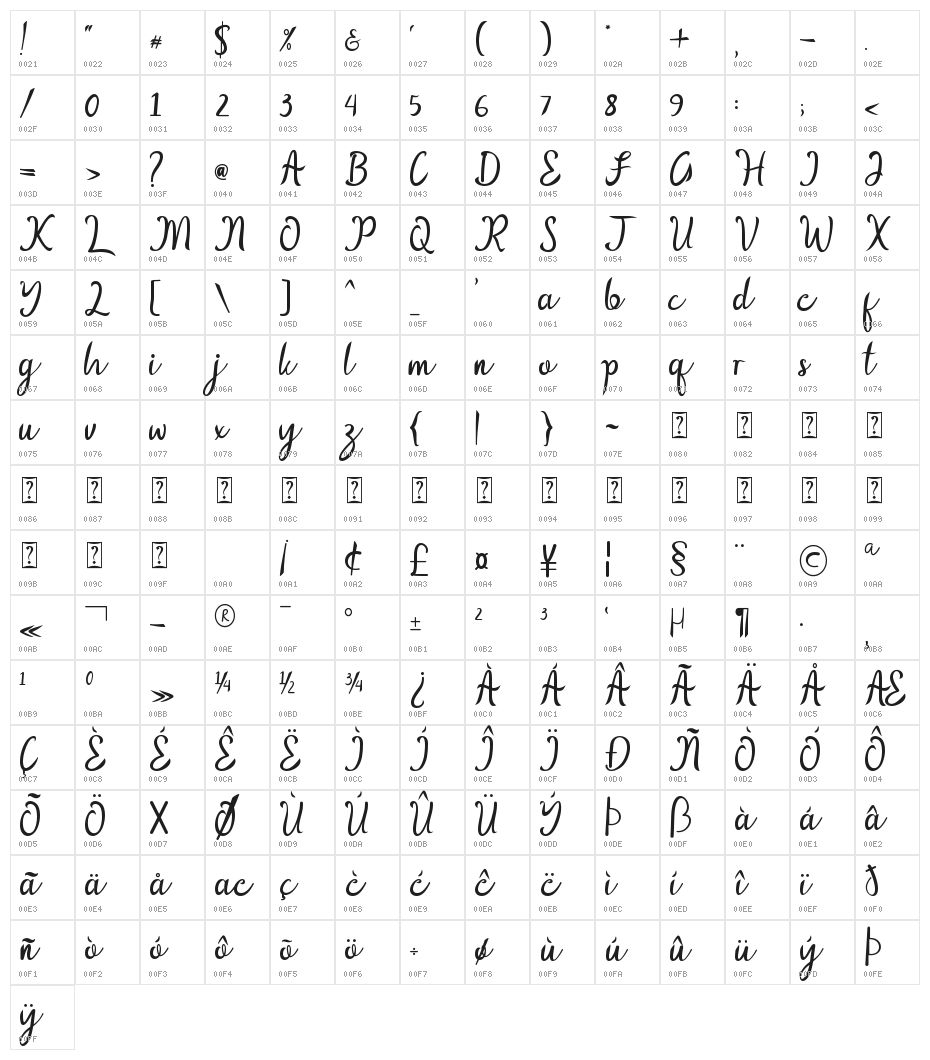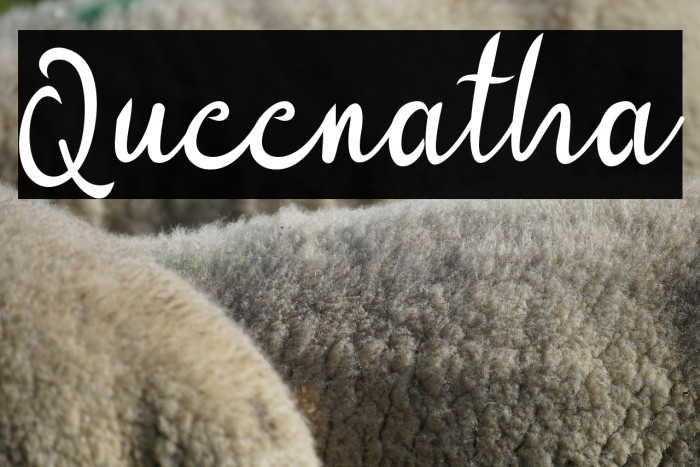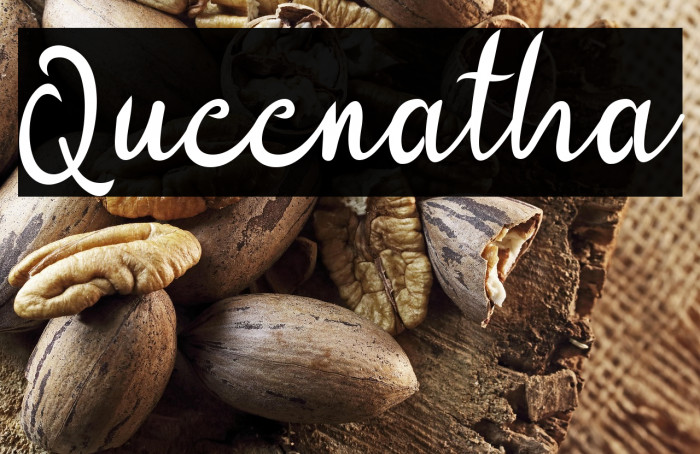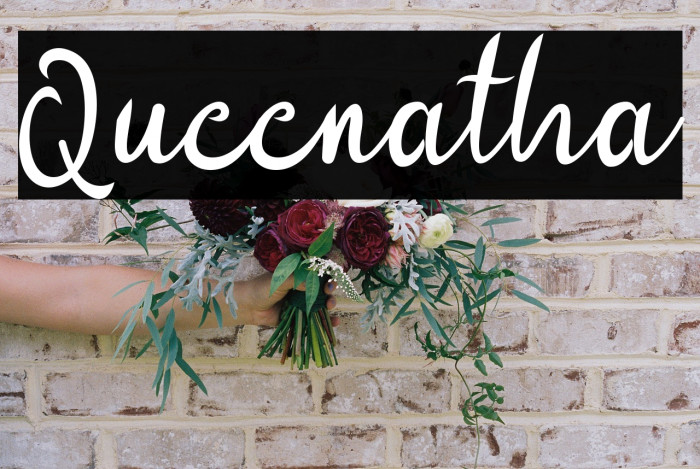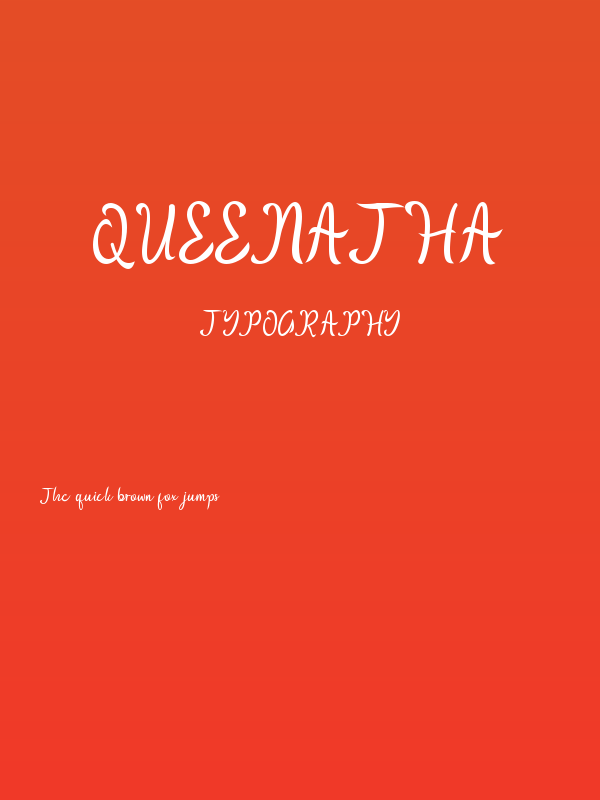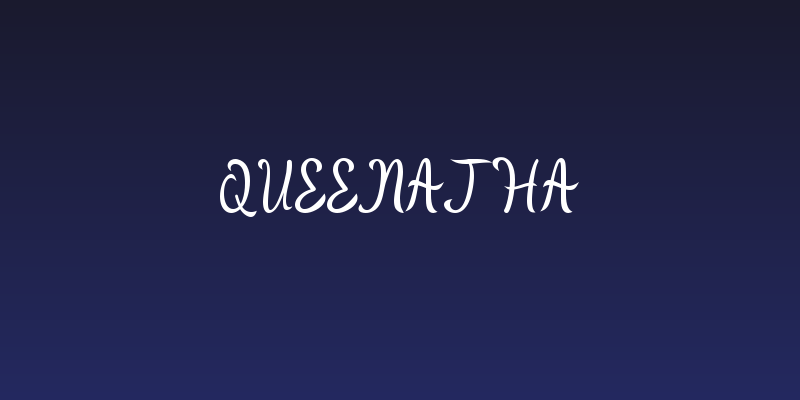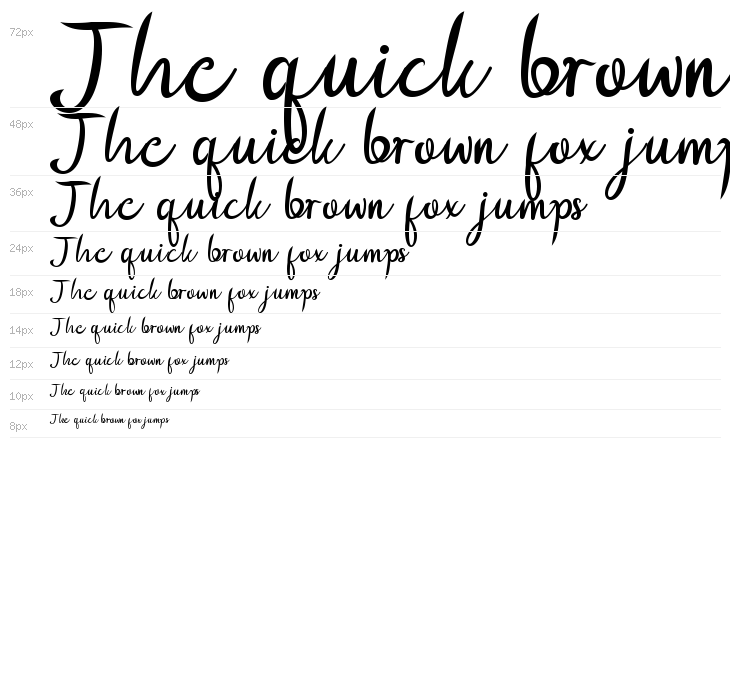
Queenatha Font
Queenatha Description
This font features a flowing, cursive style with elegant, sweeping curves that give it a sophisticated and artistic appearance. The uppercase letters are bold and prominent, with distinctive loops and flourishes that add a touch of flair. The lowercase letters maintain a consistent style, with smooth connections between characters, enhancing the script's fluidity. Numbers and special characters are designed to match the overall aesthetic, ensuring a cohesive look across all text elements. The font's design is both decorative and legible, making it suitable for a variety of creative applications.